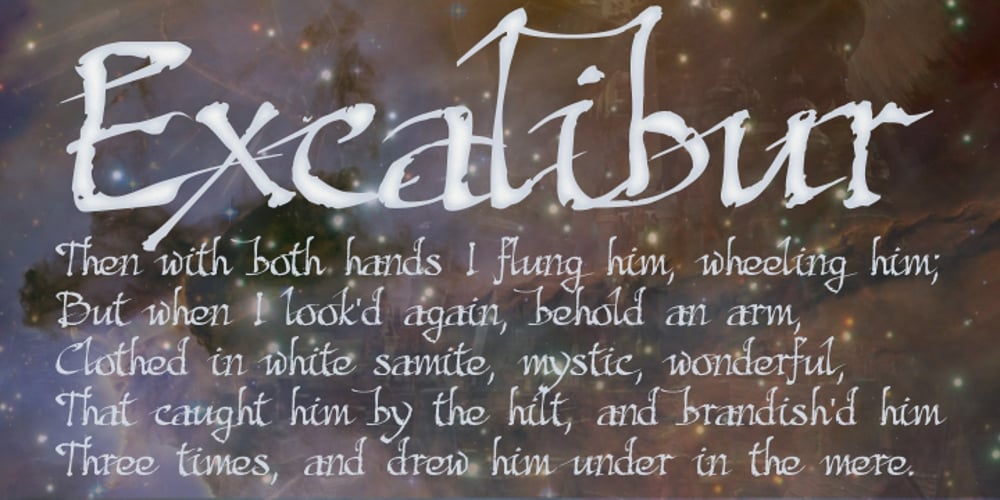
Excalibur SCF Font Family was designed by Anton Scholtz and published by Scholtz Fonts. Excalibur SCF contains 1 styles and family package options. Let it be known that this font is named for Excalibur, King Arthur’s Magic Sword. The font is derived from a note that Arthur hastily penned to his Queen, Guinevere, during a lull in one of his many battles against the Saxons. Arthur’s armour was so hefty that he could not easily seat himself, and so to pen his letter to Guinevere he plunged his legendary sword Excalibur into the marshy soil on which he had been fighting and thereby steadied his writing hand with the hasp of his magical sword. This ancient and battle-weary font is based on the writing from a fragment of that original document. It has been heralded by modern scholars as “grunge” writing of great antiquity. The font Excalibur SCF contains a full character set and it is professionally letterspaced and kerned. Use this font to create a feeling of haste, of authentic ancient history, of magical times, of chivalry, of dragons and of brave battles fought.